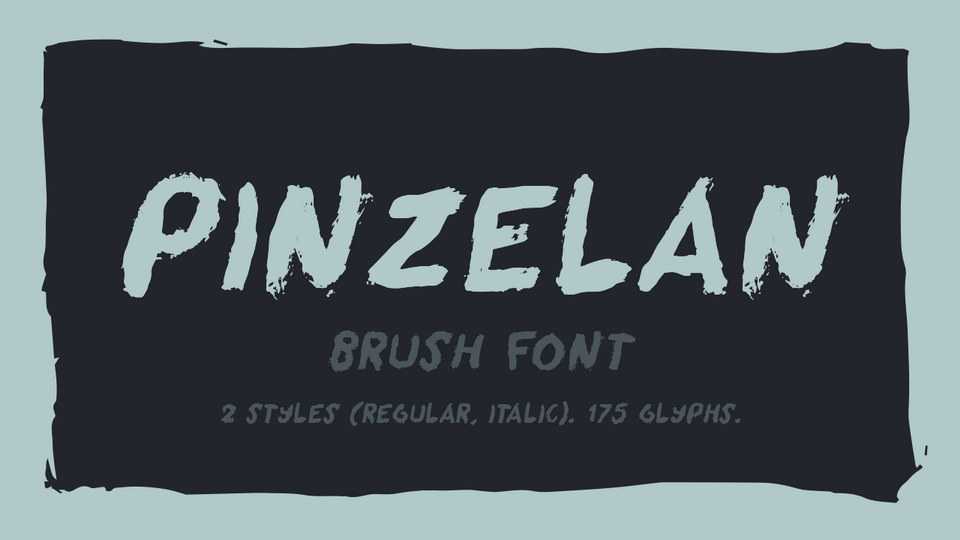
Download Pinzelan font, a bold and rough brush typeface with two styles. Pinzelan is perfect for logos, quotes, posters, for clothing, and every other design which needs a unique touch.